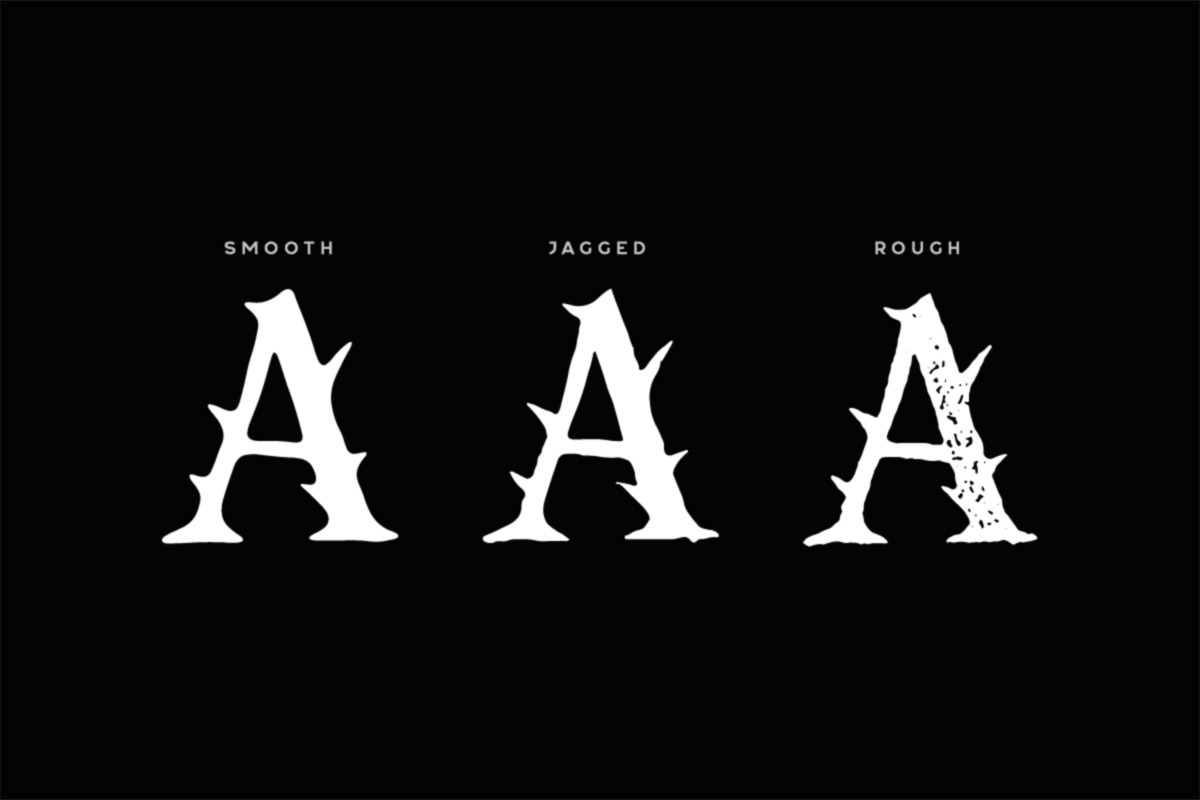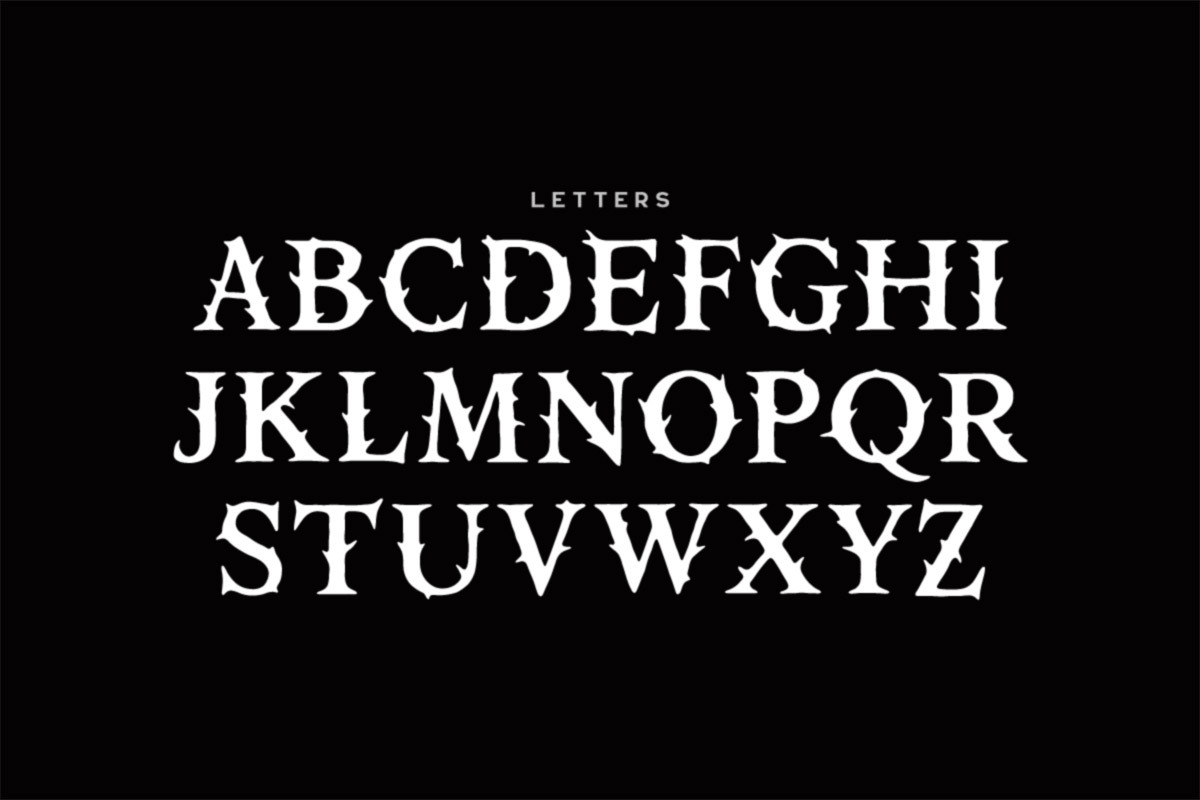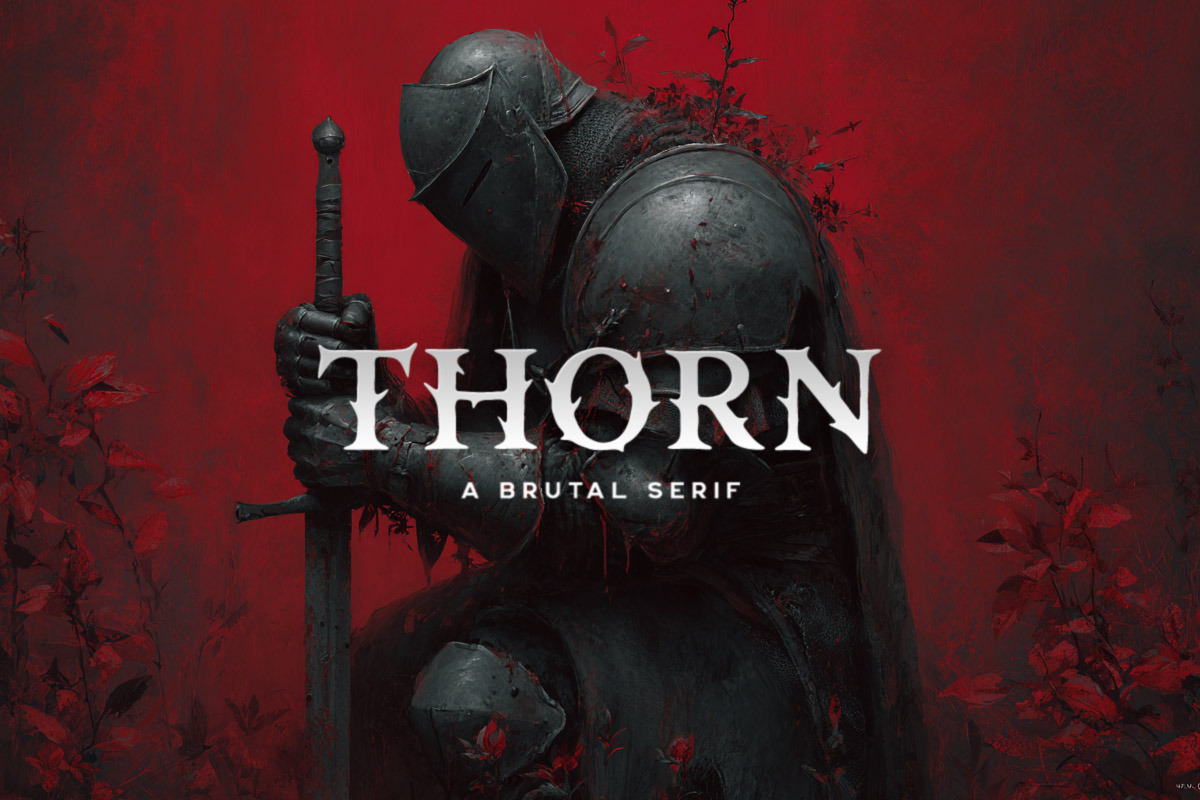
Thorn Typeface
THORN is a brutal medieval serif forged for dark fantasy worlds, grim legends, and battle-scarred storytelling. Its jagged serifs, heavy contrast, and aggressive silhouettes capture the raw weight of iron, stone, and blood. Designed for maximum impact, THORN is ideal for book covers, RPG titles, metal artwork, heroic fantasy branding, and atmospheric posters. Includes Smooth, Jagged, and Rough styles.